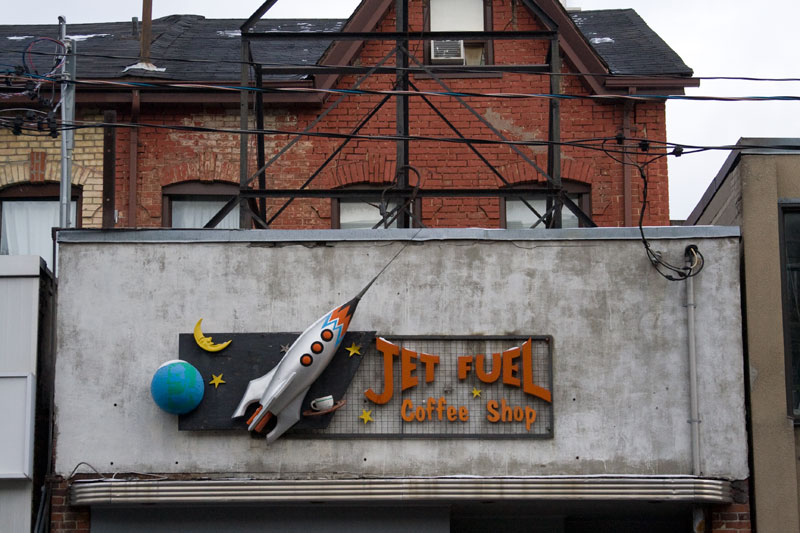
Jet Fuel Coffee Shop
I like signs that make bold promises. This coffee shop implies here that its drinks will send you on a cosmic journey.
Take a look at how the night sky abruptly ends part way across the sign. It’s as if to say you’ll be rocketed out of slumber by their caffeinated brew, perhaps leaving the limits of the known universe behind. The dramatic distortion of the words “JET FUEL” adds to the forecast of a mind-bending trip.
The three-dimensional rocket gives this a playful feeling. Maybe the giddy possibilities of childhood are recaptured here.